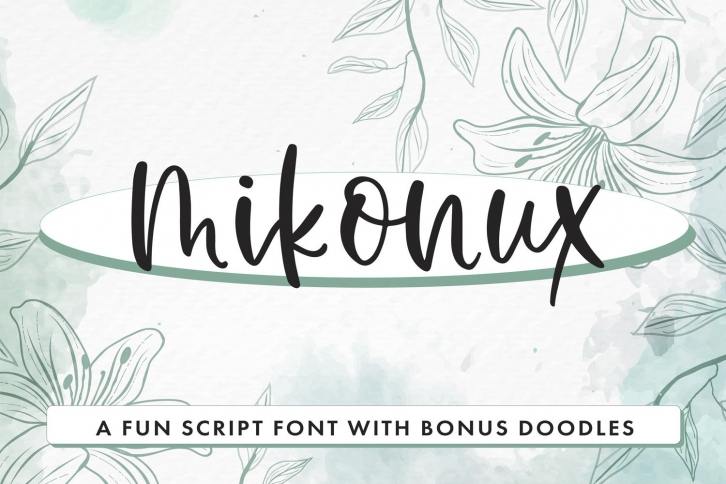
Mikonux A Fun Script With Doodles is a trendy and unique font with an authentic style. It was designed by FreelingDesignHouse and it's a great choice for creative people who need such a font. It was released on July 24, 2020 and the file size is 20.33 MB. Mikonux A Fun Script With Doodles will add an organic vibe to any design idea!